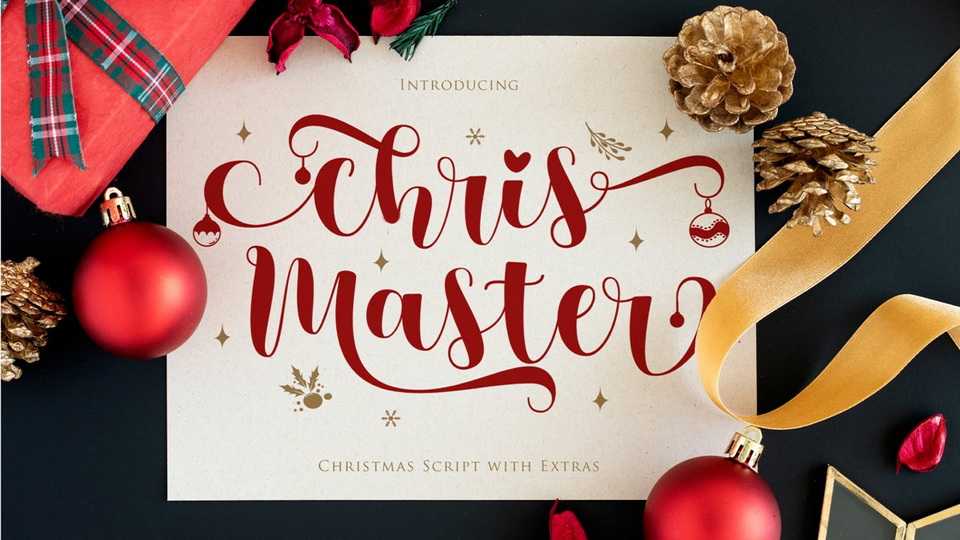
Download Chris Master font, a beautiful and romantic modern calligraphy typeface. Chris Master looks stunning on a variety of designs requiring a holiday style.
Designer: Gilar Studio